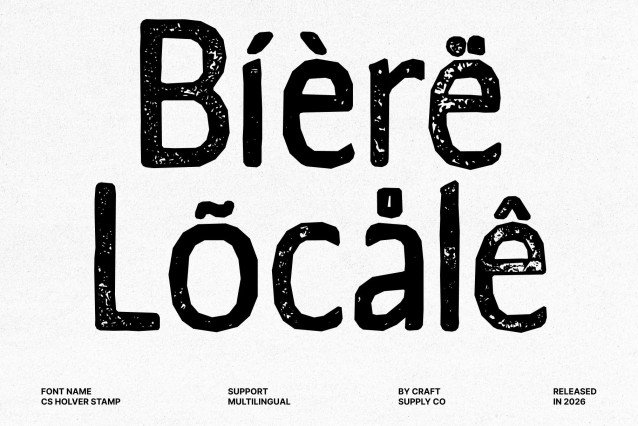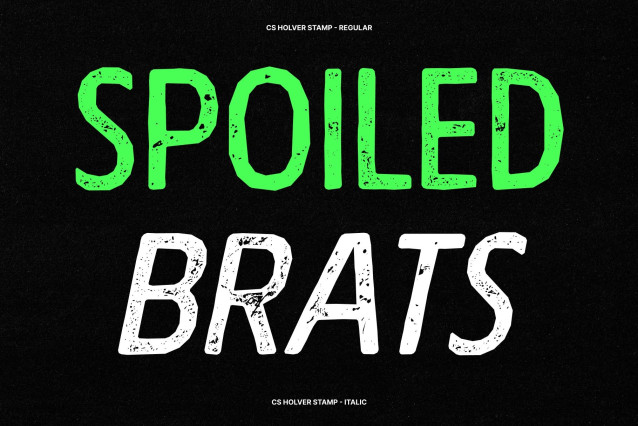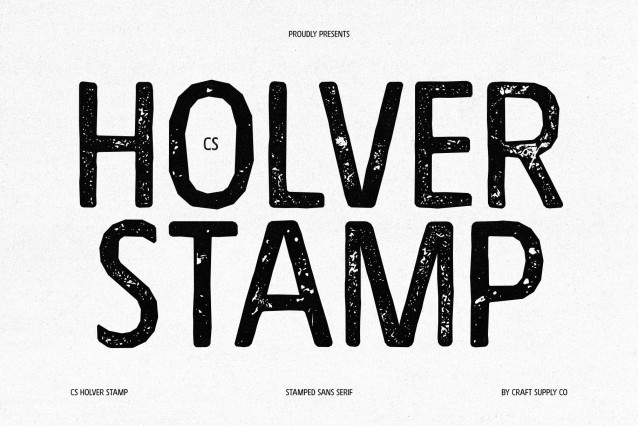
CS Holver Stamp Font
CS Holver Stamp – Contemporary Sans Serif with Vintage Texture
Clean Geometric Shapes with Modern Clarity
This is a modern sans serif font built on clean, geometric shapes that create a sleek and minimalist appearance. Its balanced proportions and symmetrical letterforms ensure strong readability while maintaining a refined and contemporary aesthetic.
Professional and Versatile for Branding
Designed for clarity and sophistication, this font works beautifully across branding and corporate design. From logos and presentations to websites and packaging, this font communicates reliability, professionalism, and forward-thinking style with ease.
Excellent Readability for Editorial and Presentations
Open shapes and clean lines allow text to remain clear and legible even in dense layouts. This makes the font ideal for editorial projects, presentations, and business materials where communication and clarity are essential.